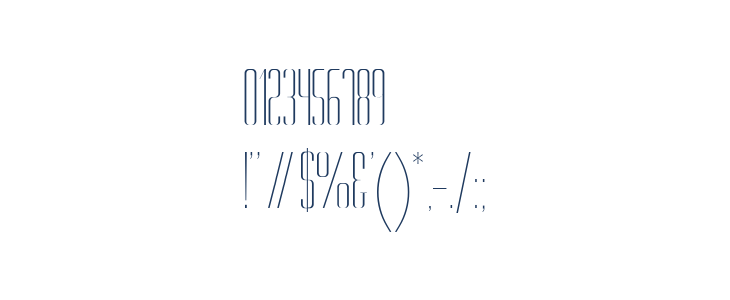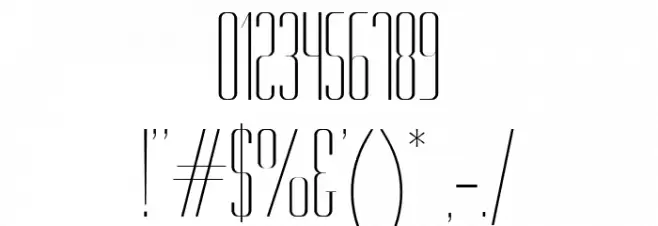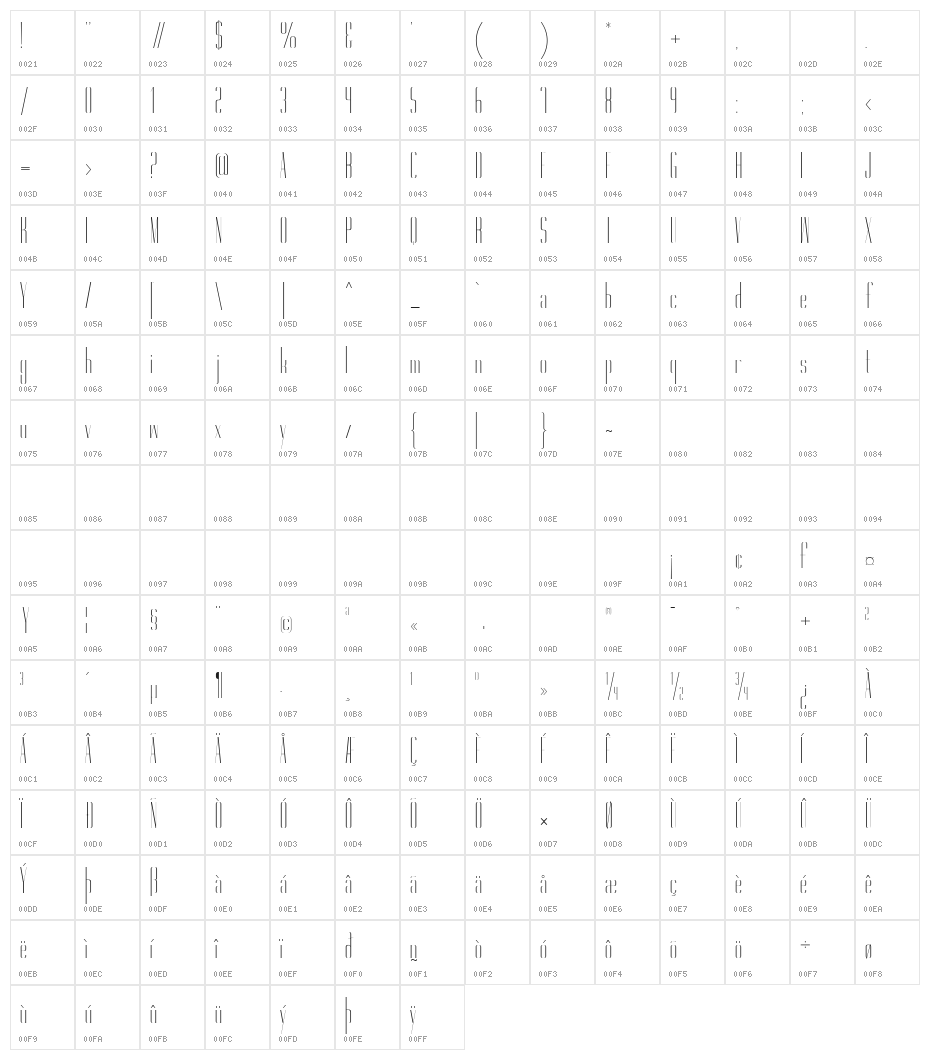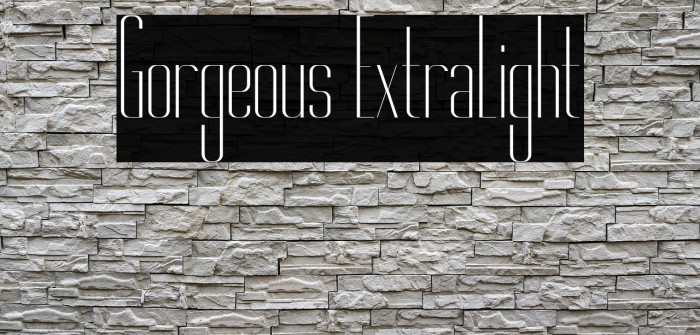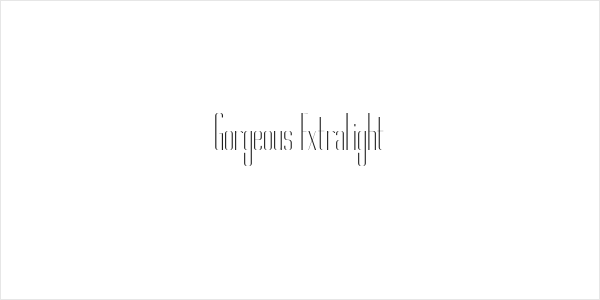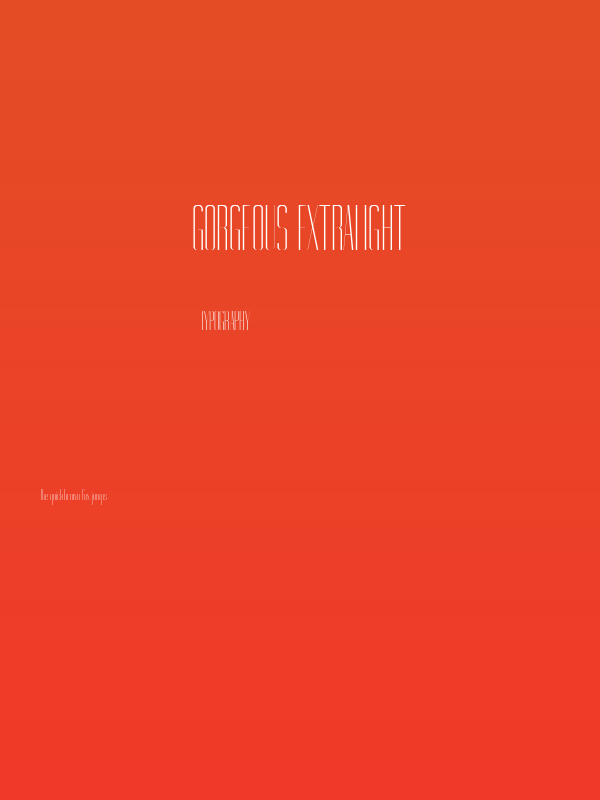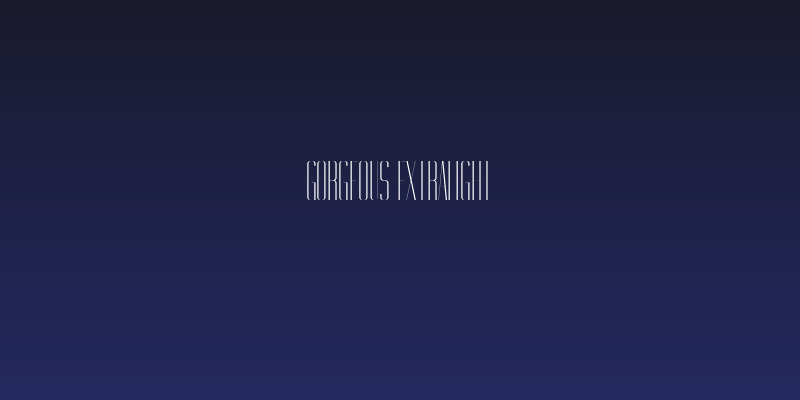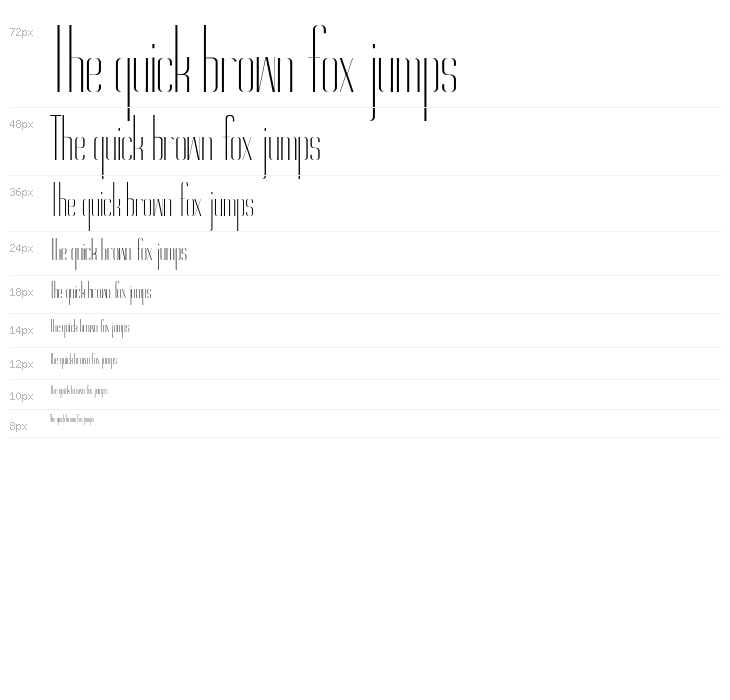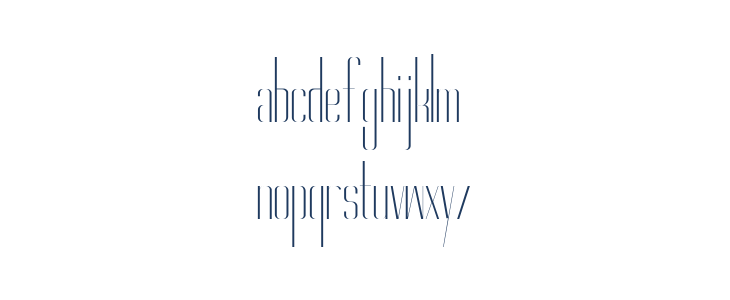
Gorgeous ExtraLight Font
Gorgeous ExtraLight Description
This font features an elegant and ultra-thin design, characterized by its tall and narrow letterforms. The strokes are consistently thin, giving it a sleek and modern appearance. The uppercase letters are particularly elongated, while the lowercase letters maintain a consistent height, contributing to a harmonious and balanced look. The numerals and special characters follow the same slender style, ensuring uniformity across all glyphs. This font's minimalistic and refined aesthetic makes it suitable for contemporary design projects.
| Proposed Projects | Ideal for fashion magazines, luxury branding, minimalist posters, and high-end product packaging. |